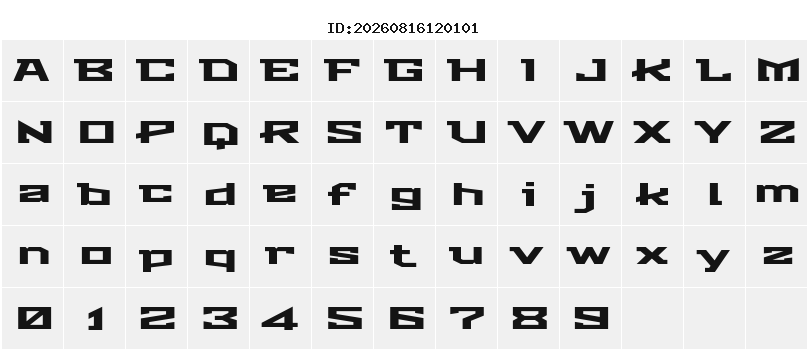
Stalin One Preview
• Font Name: Stalin One
• Font ID: AlexeyMaslovandJovannyLemonad: Stalin One: 2011
• Full Font Name: Stalin One
• Version: Version 3
• PostScript Name: StalinOne
• Character Count: 333
• Designer: Jovanny Lemonad
• Manufacturer: Alexey Maslov and Jovanny Lemonad
About Stalin One.ttf
Stalin One.ttf is a modern, elegant sans-serif font designed for ultimate readability and visual harmony. Perfect for branding, headlines, web design, and print materials.